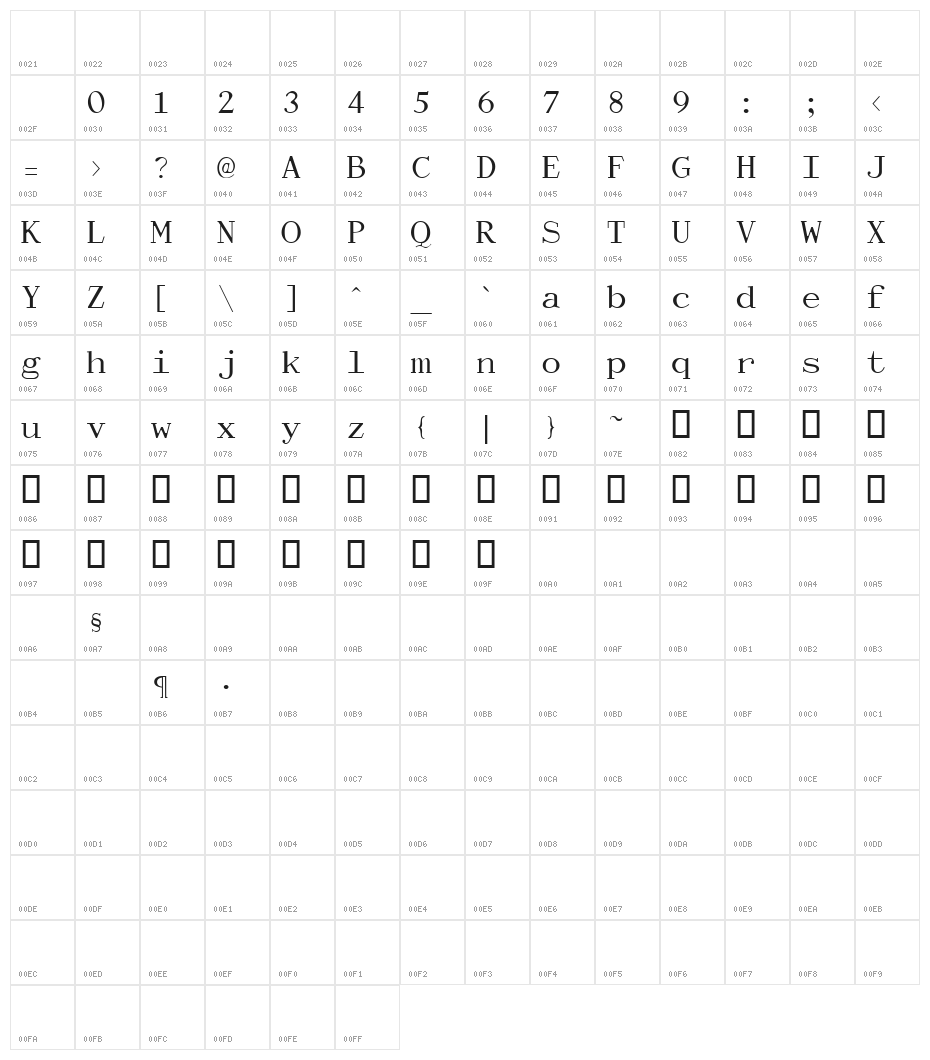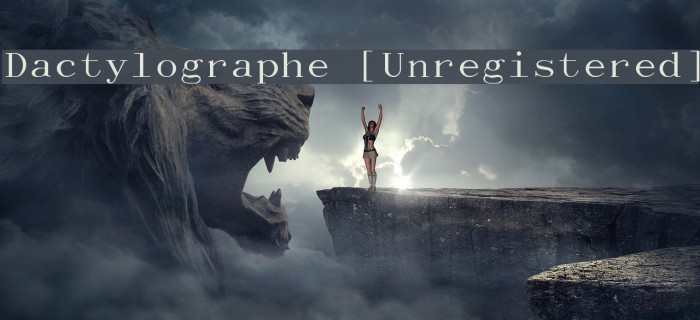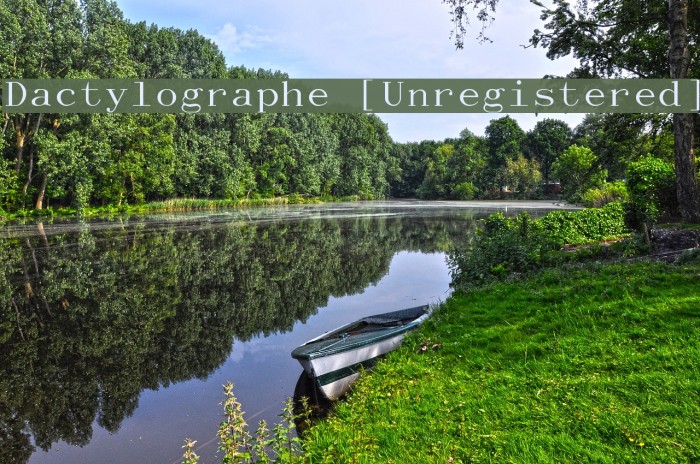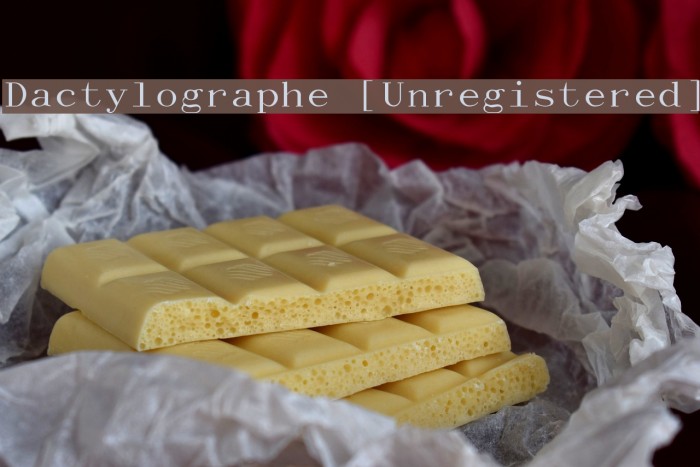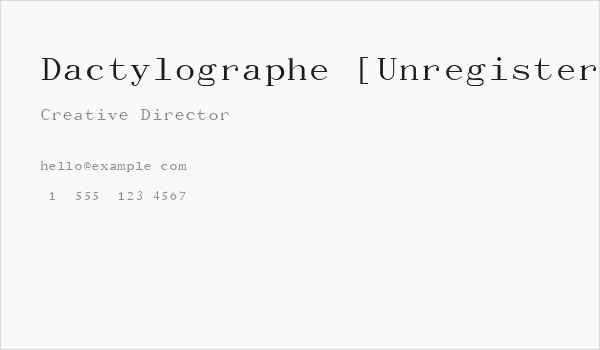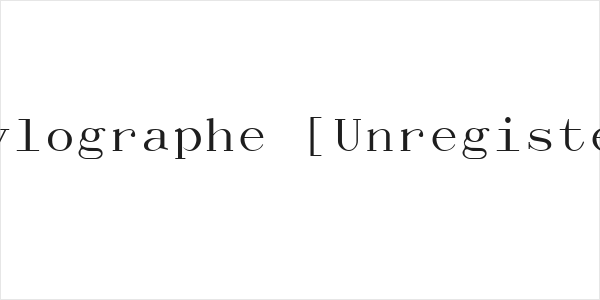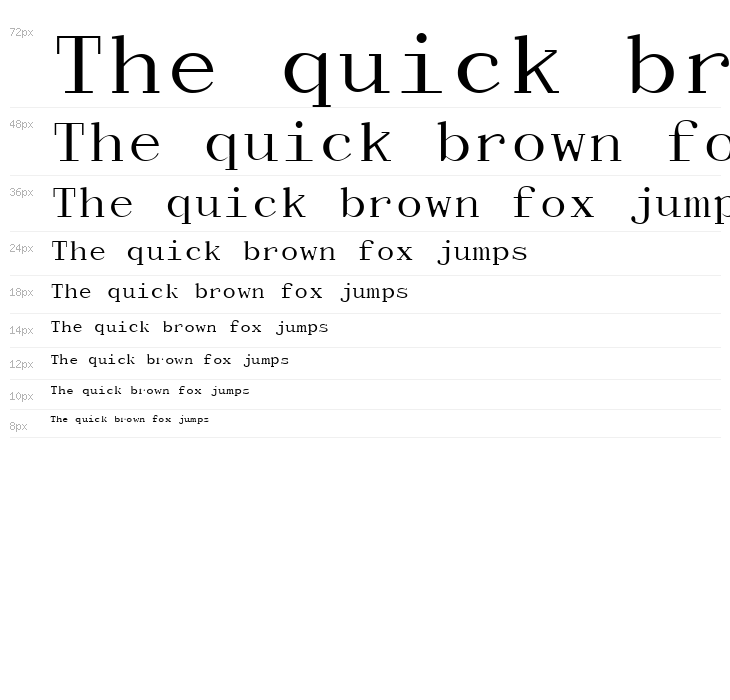
Dactylographe [Unregistered] Font
Dactylographe [Unregistered] Description
This font features a classic serif style with elegant, thin strokes and subtle curves. The uppercase letters are tall and stately, while the lowercase letters maintain a consistent height, offering a harmonious balance. The numerals are clear and distinct, with a traditional appearance that complements the overall design. The special characters are crafted with precision, maintaining the font's refined aesthetic. This typeface exudes sophistication and is well-suited for formal and professional applications.
| Proposed Projects | Ideal for use in editorial design, book covers, formal invitations, and branding materials that require a touch of elegance. |